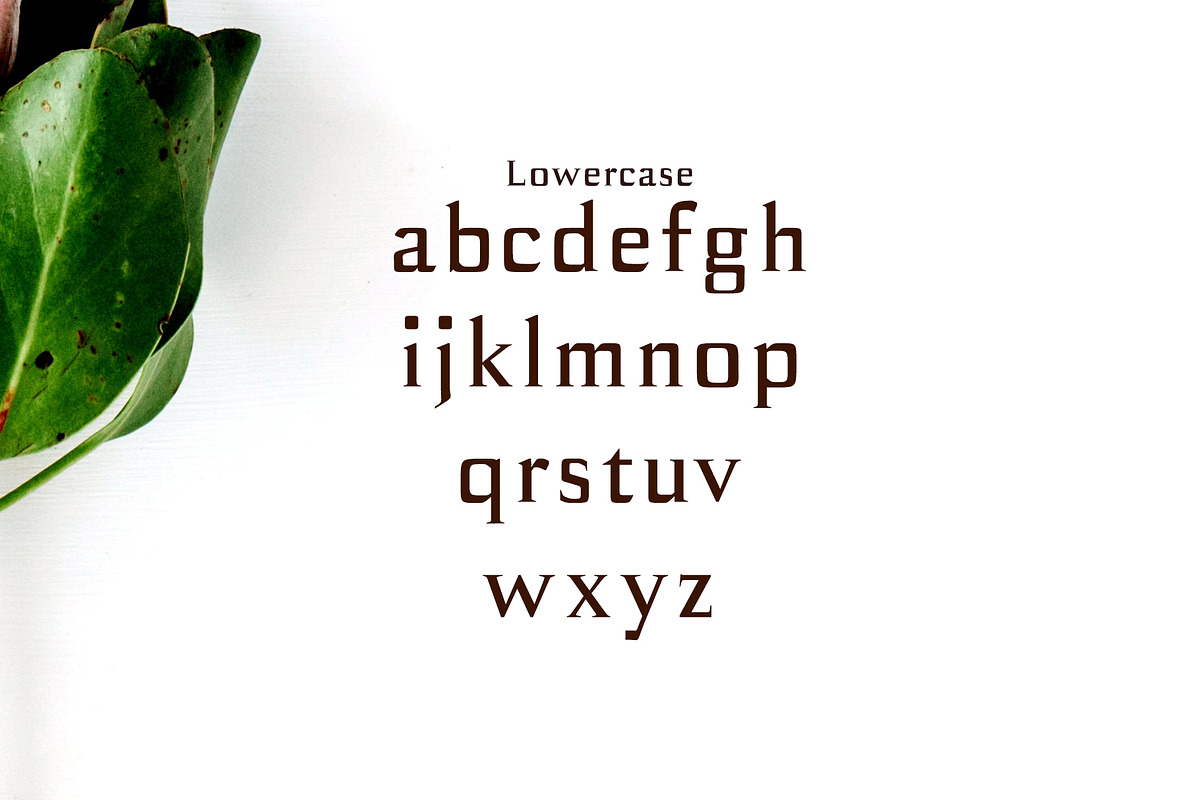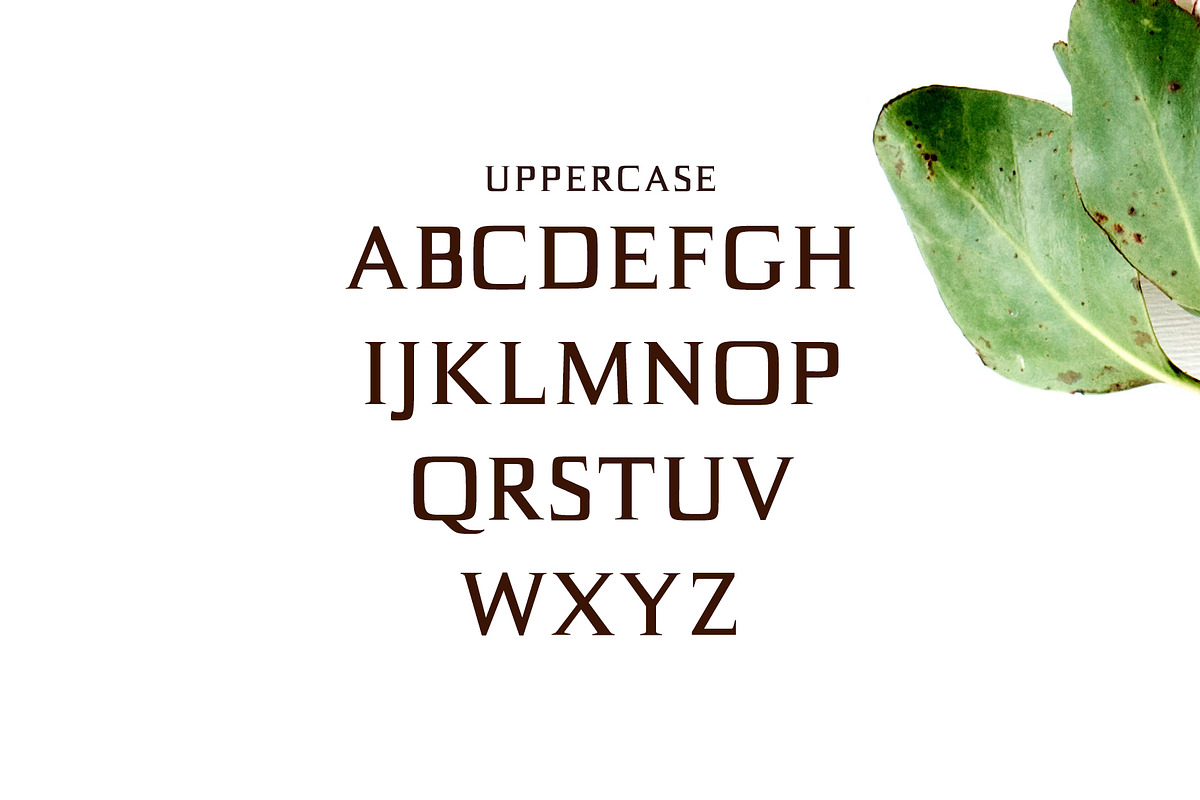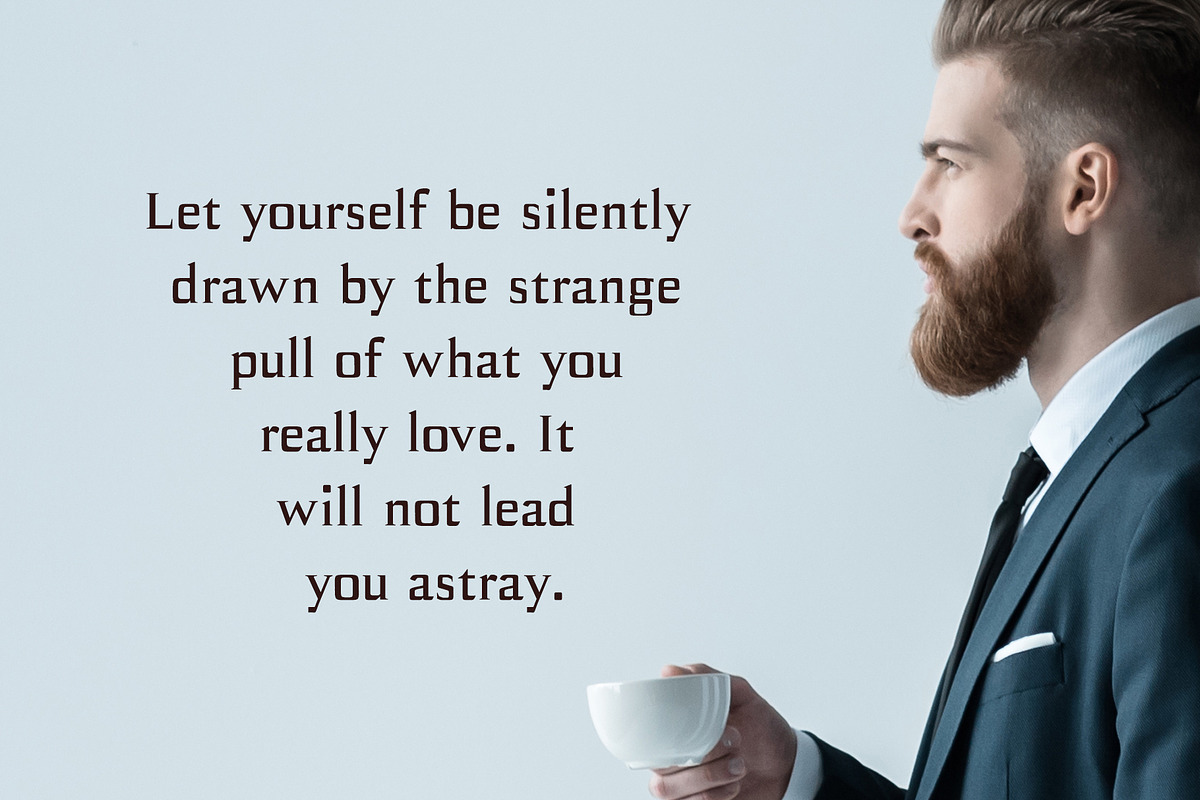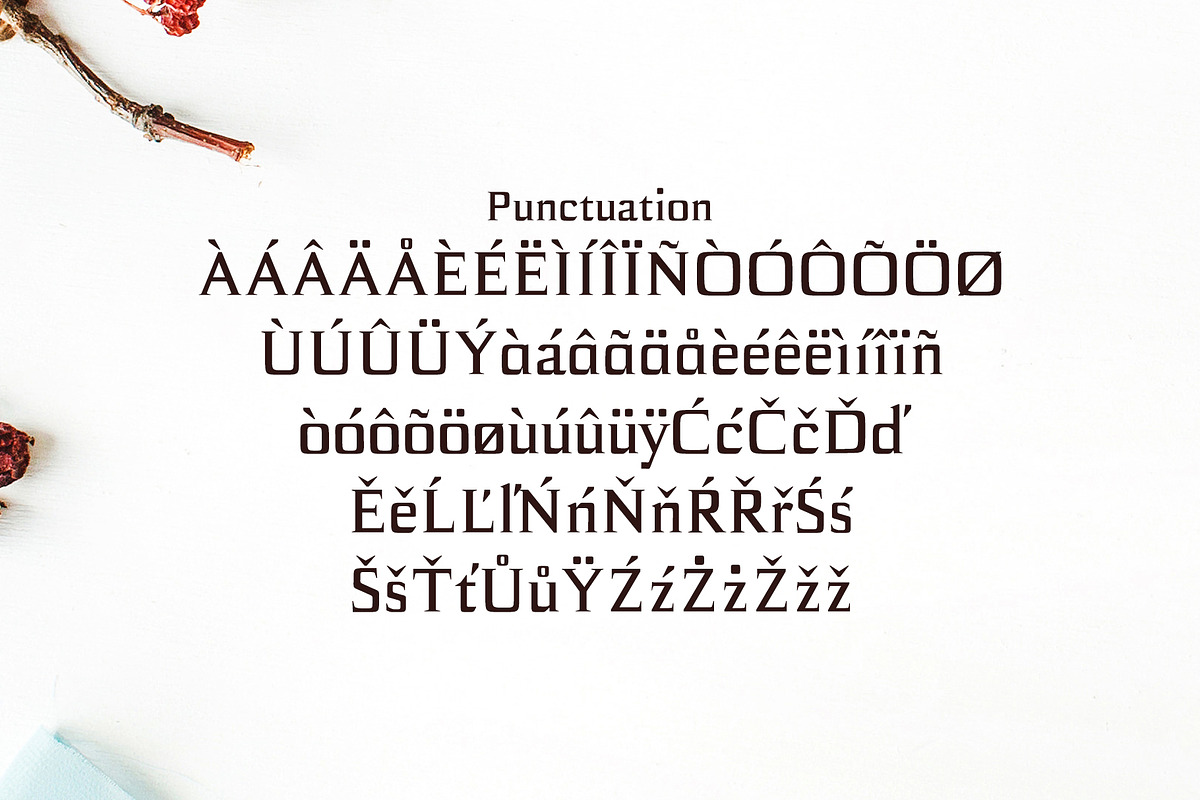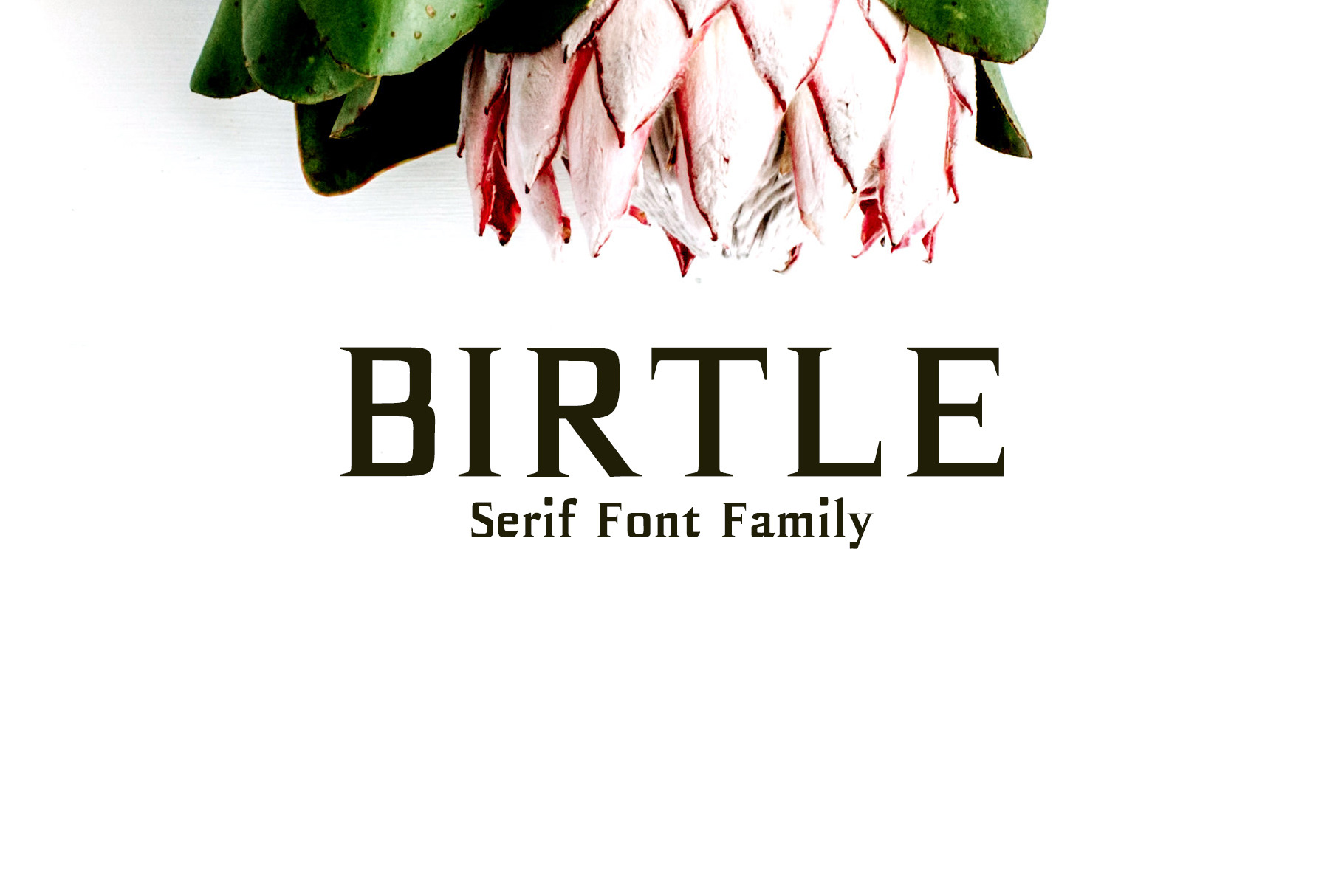
Birtle Serif 3 Font Family Pack
Birtle Serif Font Family is a decorative serif font family, which contains 3 weights and It features unique and modern serif look and feel. Perfect for gorgeous logos, titles, web layouts and branding. It looks gorgeous in all caps with a wide-set spacing if you want to try a classy look, or beautiful on its own in capital and lowercase letters for something completely timeless.
Included Features:
- Font Weight: Regular, Distorted and Bold
Birtle Font Features:
- Uppercase Multilingual Letters
- Lowercase Multilingual Letters
- Non English Characters ( Latin Supplement + Latin Extended A)